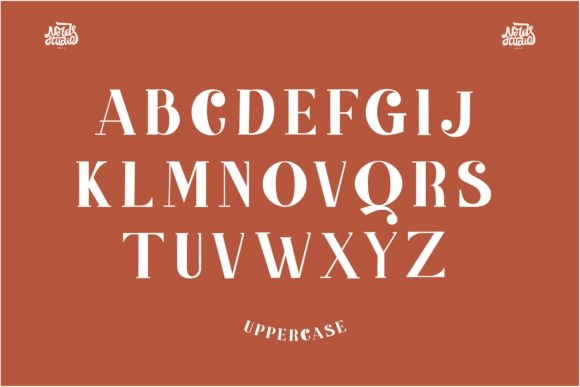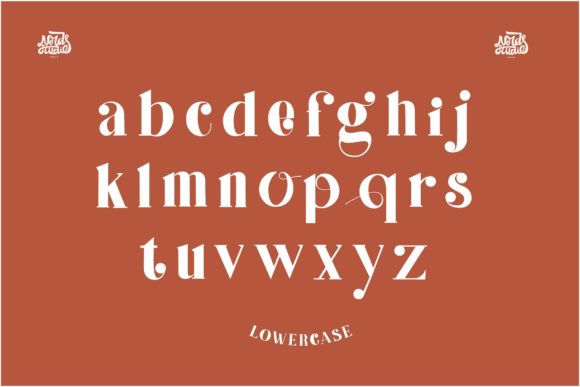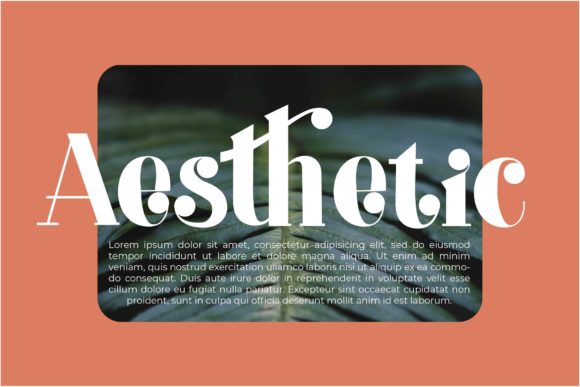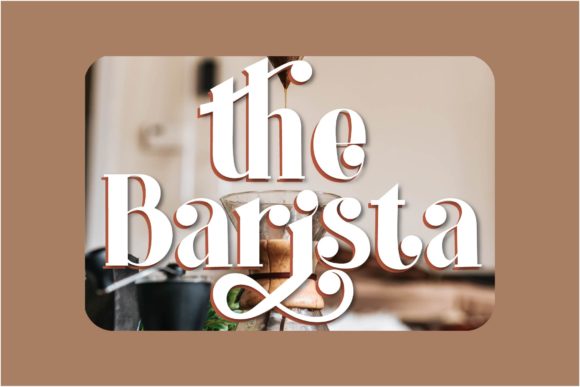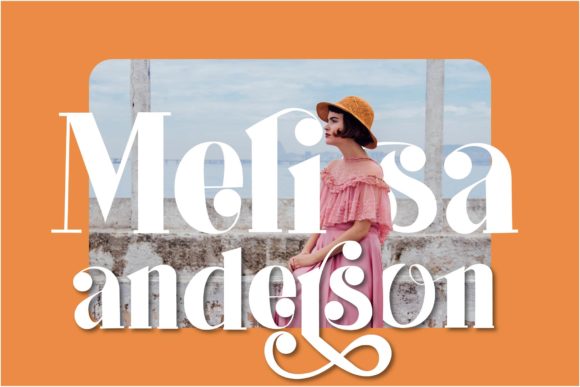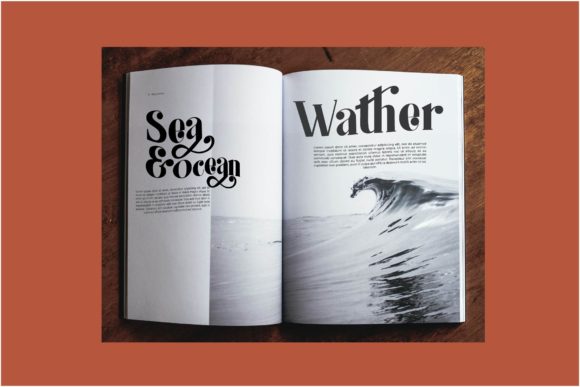
Introducing Camelia Font: Elevate Your Designs with Elegance and Versatility
Are you looking for a font that exudes sophistication and style? Look no further than Camelia Font, an elegant and bold serif font that is sure to capture your heart. With its incredibly versatile style, Camelia Font is perfect for creating stunning wedding invitations, beautiful stationery art, eye-catching social media posts, and so much more.
What Makes Camelia Font So Special?
Camelia Font is a beautifully crafted serif font that boasts an impressive range of features, making it a must-have for designers and crafters. Here are just a few reasons why Camelia Font stands out:
- Elegant and Bold Design: Camelia Font features a classic serif design with a bold and elegant twist, making it perfect for creating sophisticated and eye-catching designs.
- Versatile Style: Whether you’re designing wedding invitations, social media posts, or stationery art, Camelia Font adapts effortlessly to any style or theme.
- PUA Encoded: Camelia Font is PUA (Private Use Area) encoded, which means you can access all the glyphs and swashes with ease, giving you complete creative control.
Endless Design Possibilities with Camelia Font
With Camelia Font, the design possibilities are endless. Here are just a few ideas to get you started:
- Wedding Invitations: Create stunning wedding invitations that set the tone for the big day. Camelia Font’s elegant design and beautiful swashes make it perfect for wedding stationery.
- Stationery Art: Add a touch of sophistication to your stationery art with Camelia Font. Use it to create beautiful greeting cards, thank you cards, and more.
- Social Media Posts: Make your social media posts stand out with Camelia Font. Its bold and elegant design is sure to grab attention and leave a lasting impression.
- Branding and Packaging: Use Camelia Font to elevate your brand’s visual identity. Its versatile style makes it perfect for creating logos, business cards, and packaging designs.
Why Choose Camelia Font?
With so many fonts available, why choose Camelia Font? Here are just a few reasons why Camelia Font is a top choice among designers and crafters:
- High-Quality Design: Camelia Font is designed with precision and attention to detail, ensuring a high-quality design that looks great in any context.
- Easy to Use: With its PUA encoding, Camelia Font is easy to use, even for those with limited design experience.
- Unique and Versatile: Camelia Font’s unique and versatile design makes it perfect for a wide range of design projects, from wedding invitations to social media posts.
Tips for Getting the Most Out of Camelia Font
To get the most out of Camelia Font, here are a few tips to keep in mind:
- Experiment with Different Sizes and Styles: Don’t be afraid to experiment with different sizes and styles to find the perfect look for your design.
- Use Swashes and Glyphs: Take advantage of Camelia Font’s PUA encoding to access a wide range of swashes and glyphs, adding an extra touch of elegance to your designs.
- Pair with Other Fonts: Try pairing Camelia Font with other fonts to create a unique and visually appealing design.
In conclusion, Camelia Font is an elegant and bold serif font that is sure to elevate your designs to the next level. With its incredibly versatile style, PUA encoding, and high-quality design, Camelia Font is perfect for creating stunning wedding invitations, beautiful stationery art, eye-catching social media posts, and much more. Whether you’re a designer or crafter, Camelia Font is a must-have in your font collection.